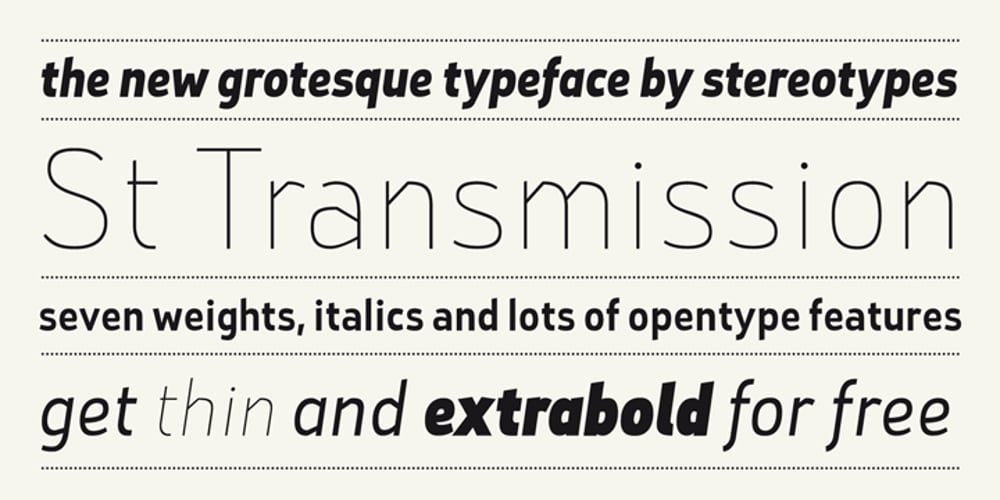
St Transmission Font Family was designed by Sascha Timplan and published by Stereotypes. St Transmission contains 14 styles and family package options. St Transmission was one of the first ambitious projects for Stereotypes. Building a complete family with a lot of weights along with the italics. Transmission supports extended Latin character set, plus Cyrillic and Greek.